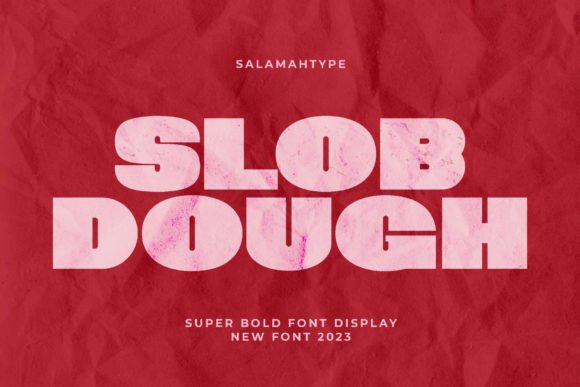
Enter the realm of unparalleled typographic expression with "Slob Dough", the audacious display font poised to captivate your digital designs. A brainchild of salamahtype, "Slob Dough" exudes an air of boldness and distinction, masterfully crafted to command attention and inspire awe.
Immerse yourself in a world of versatility, where "Slob Dough" seamlessly complements a kaleidoscope of creative endeavors. Whether you seek to craft captivating headlines that demand attention or forge logos that leave an indelible mark, "Slob Dough" rises to the challenge with unwavering grace.
Discover the allure of the textured version, a treasure trove of classic and vintage aesthetics, a perfect companion for projects yearning for a touch of nostalgia. Unleash your creativity and let "Slob Dough" transport you to realms of timeless elegance.